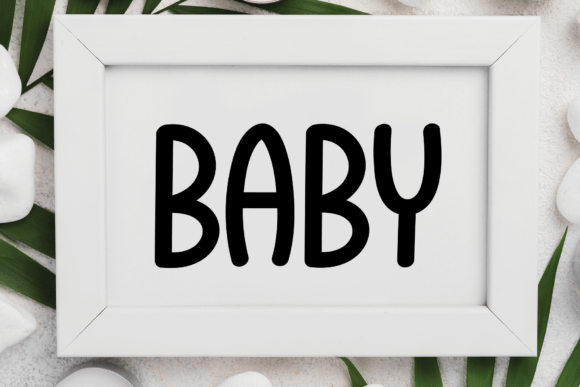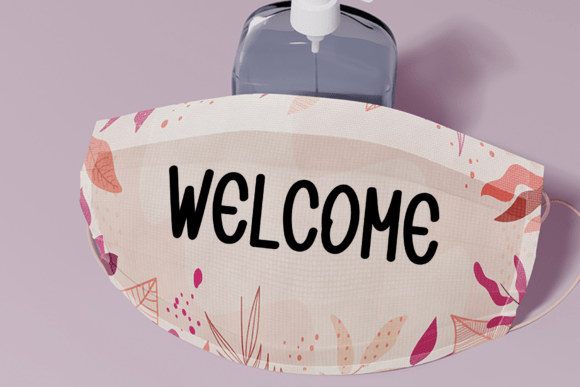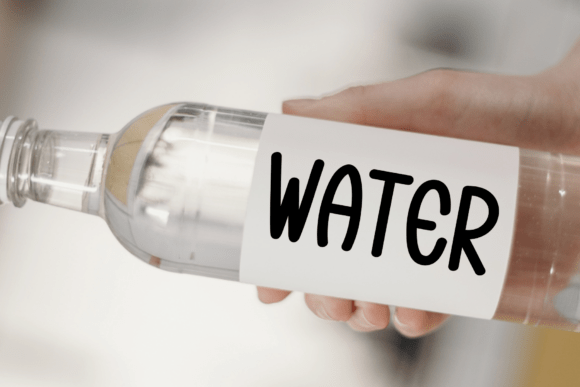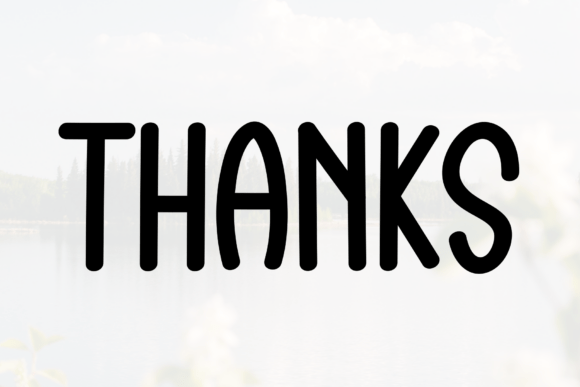
The Almonds Font: A Relaxed yet Luxurious Design Companion
I still remember the design project that led me to discover the Almonds font. I was working on a luxury brand’s lookbook, and my client wanted a font that exuded elegance but still felt casual and approachable. After hours of scouring font libraries, I stumbled upon Almonds – a handwritten font that looked like it was drawn with a marker. It was love at first sight! ✨
An Honest Review of Almonds Font
• ✨ The relaxed and sporty feel of Almonds makes it perfect for designs that need a touch of sophistication without being too formal.
• ✅ It’s incredibly versatile, suitable for branding, logos, wedding supplies, greeting cards, fashion, lookbooks, and marketing promotions.
• 💫 The font’s marker-drawn aesthetic gives it a unique, handcrafted feel that’s hard to find in digital fonts.
• 🎨 It’s available in various weights and styles, making it easy to use for both headings and body text.
While Almonds is an excellent font, it’s not without its quirks. 🤔 For instance:
• ⚠️ Some characters may appear a bit inconsistent in size or spacing, which can be noticeable in certain design contexts.
• ⚠️ It might not be the best choice for very small text sizes, as the marker-drawn style can become a bit blurry.
4. Experiment with the font’s OpenType features, such as ligatures and stylistic alternates, to add more personality to your design.
The Story Behind Almonds Font
Almonds font was designed by a talented type designer who wanted to create a font that captured the feel of hand-drawn letters. The designer was inspired by the casual, sporty vibe of marker-drawn letters and wanted to bring that to the digital world. 💫
Font Name Almonds Font
Author Berkah Shop
Q: What is the best use for Almonds font?
A: Almonds font is best used for designs that need a relaxed yet luxurious feel, such as branding, logos, wedding supplies, and fashion lookbooks.
Q: Is Almonds font suitable for body text?
A: While Almonds font can be used for body text, it’s best suited for headings and titles. For longer blocks of text, a clearer font may be more readable.